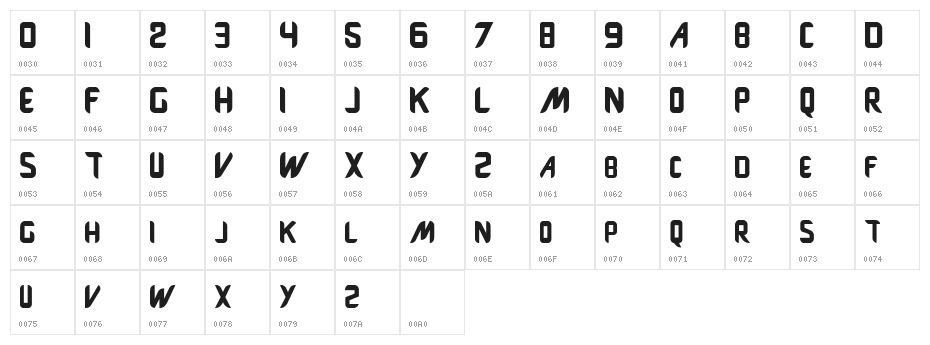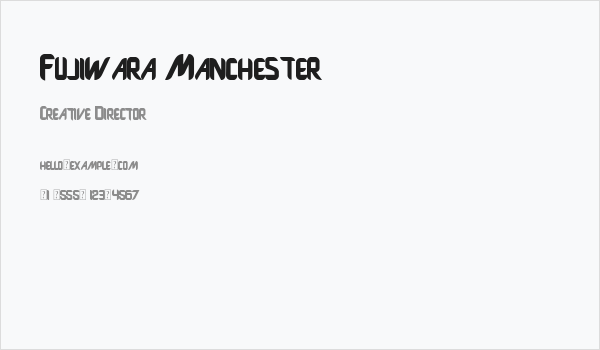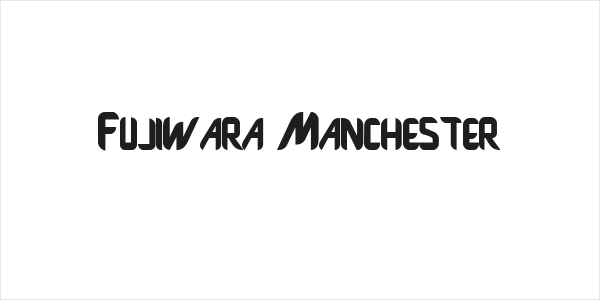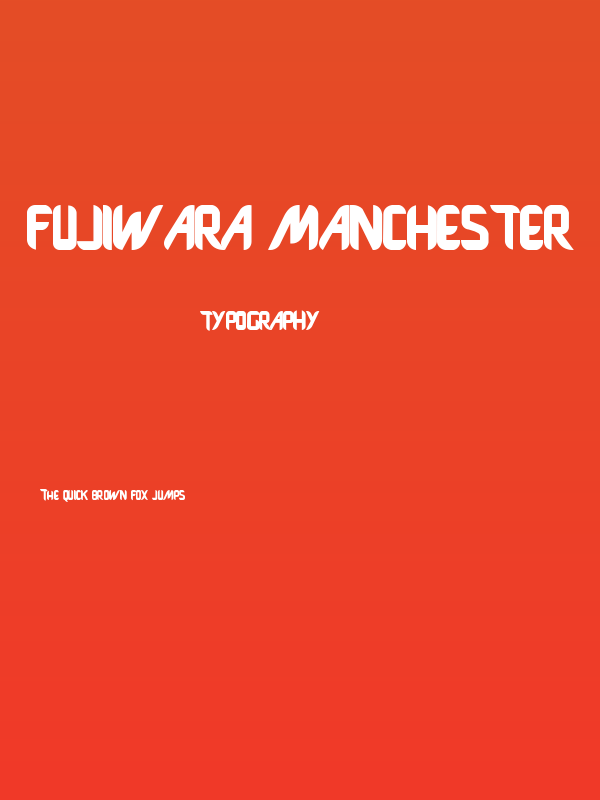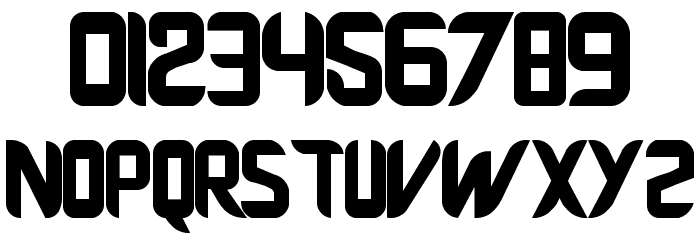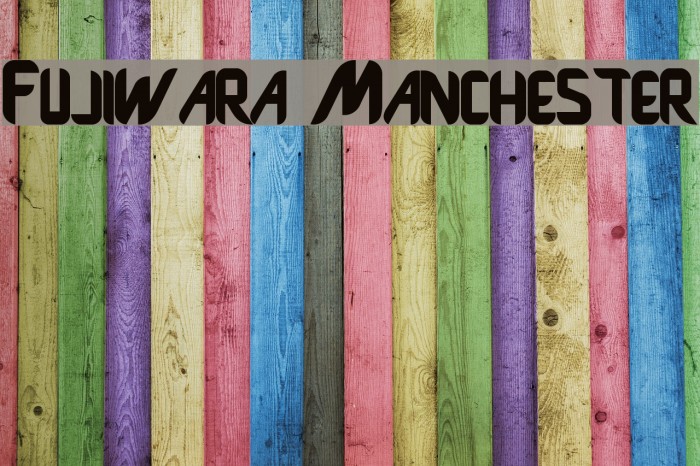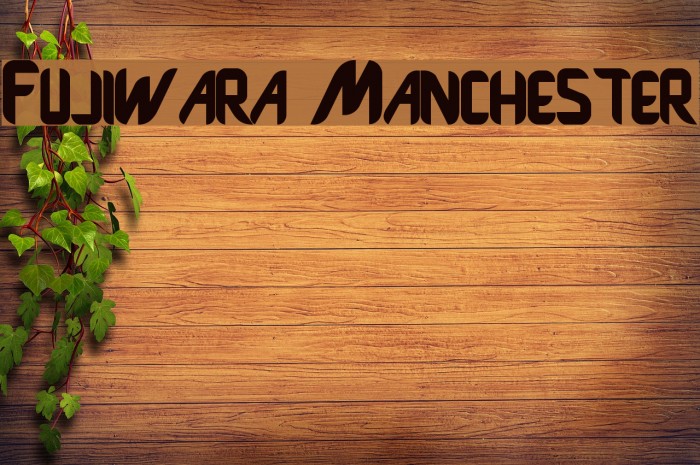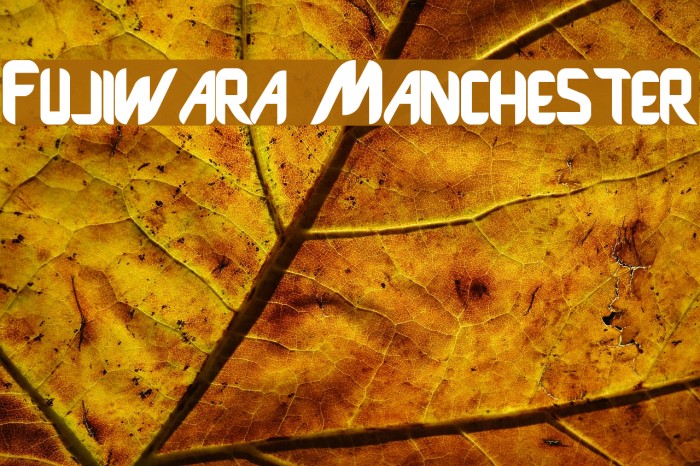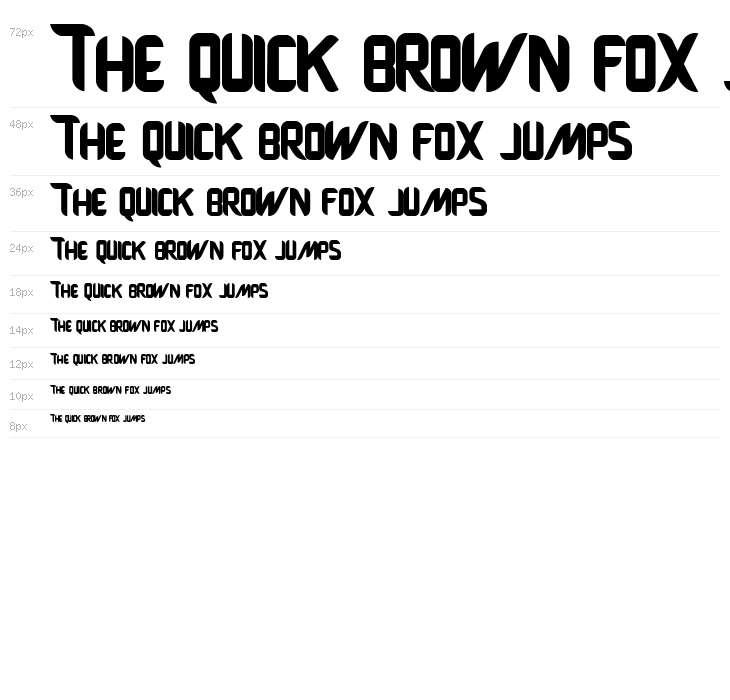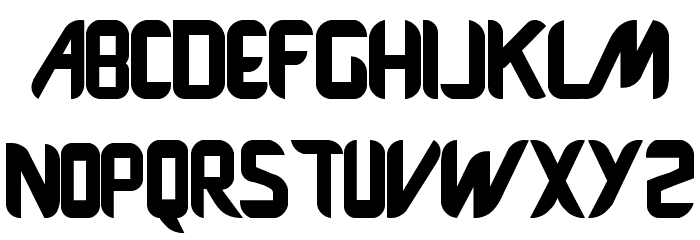
Fujiwara Manchester Font
Fujiwara Manchester Description
This font features a bold and dynamic style with a futuristic and angular design. The characters are crafted with sharp edges and a geometric structure, giving them a modern and tech-inspired appearance. The uppercase letters are particularly striking, with a consistent height and width that create a uniform look. The numbers and special characters maintain the same boldness and angularity, ensuring a cohesive design throughout. This font is ideal for projects that require a strong and impactful visual presence.
| Proposed Projects | Ideal for technology branding, video game titles, sci-fi movie posters, and modern digital interfaces. |